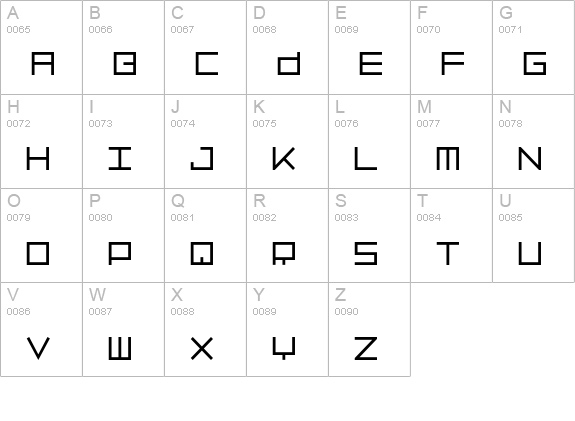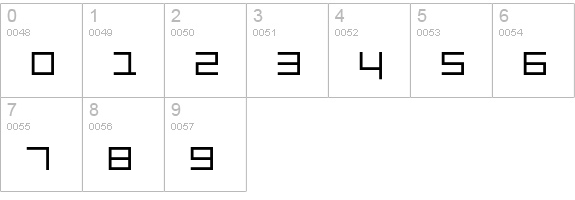
LuggageLight Font Details
LuggageLight font is a sleek and modern typeface that exudes sophistication and elegance. With its clean lines and contemporary aesthetic, this font is perfect for a wide range of design projects, from branding to editorial design. The slim and graceful letterforms of LuggageLight font add a touch of refinement to any text or graphic, making it a versatile choice for both digital and print applications. One of the best things about LuggageLight font is that it is completely free to download at FontsMarket.com. This means that you can enhance your projects with this stylish font without any cost involved. Whether you're working on a personal project or a professional design, LuggageLight font is a fantastic choice that will elevate your work to the next level. Download it today and see the difference it can make in your designs!